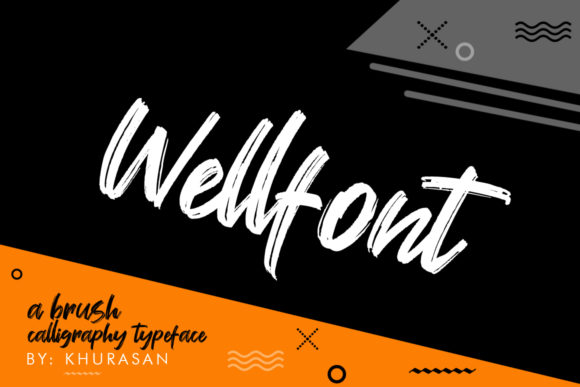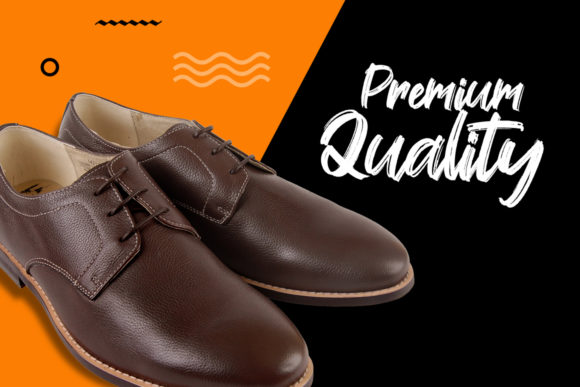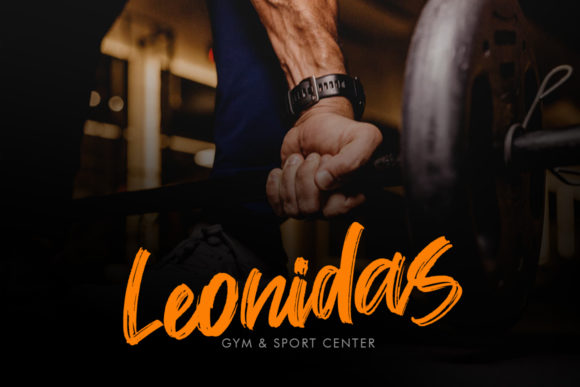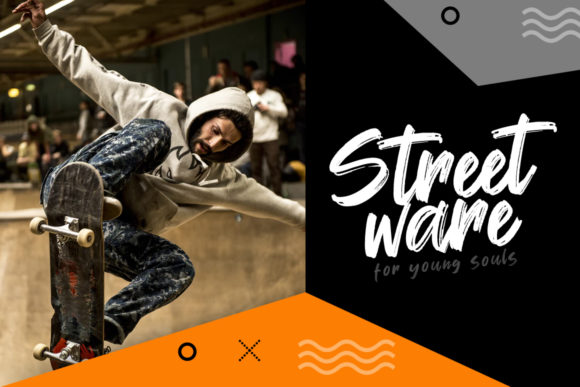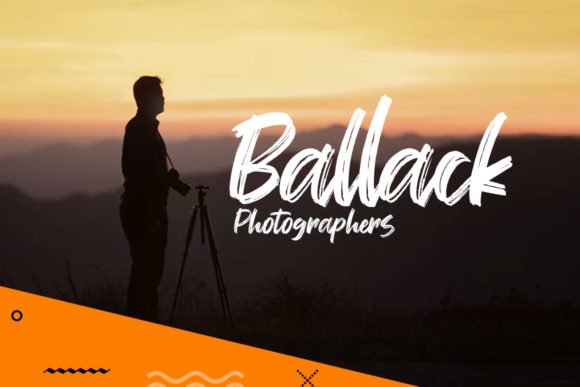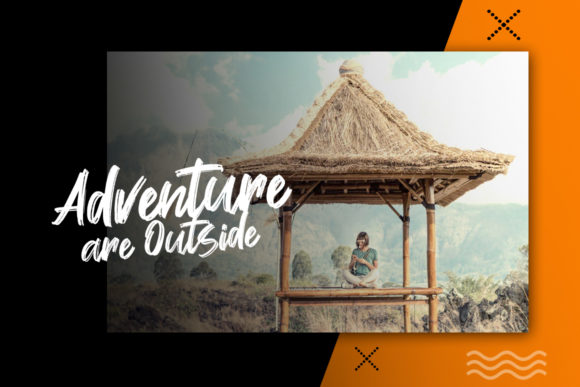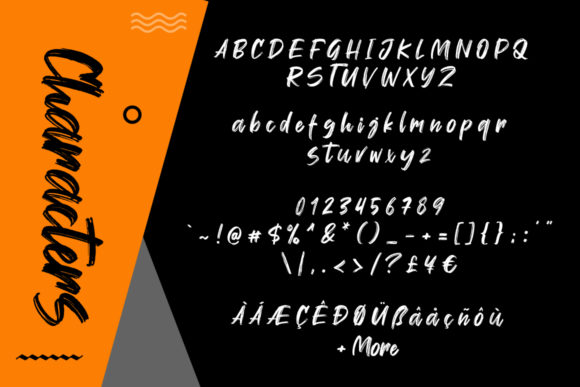
Well Font
About Well Font
The Wellfont is a fresh handwritten font brush with an elegant and vintage feel. It will add a retro touch to any design project.